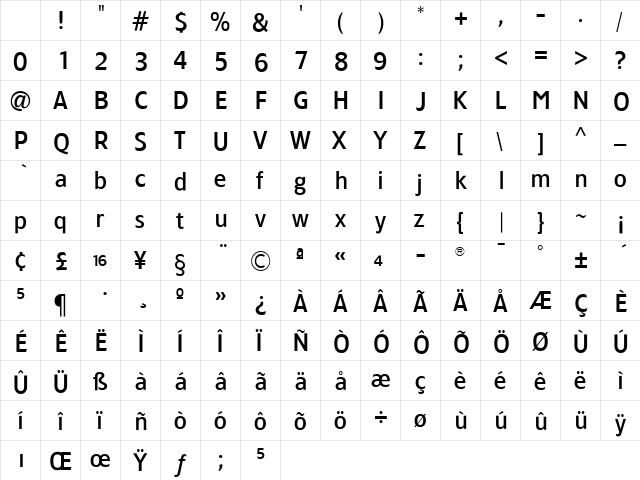
Complete TFForever Medium glyph index. Displaying only characters natively supported by TFForever Medium font.
TFForever is a composed and adaptable typeface that performs quietly and consistently across a wide range of design contexts.